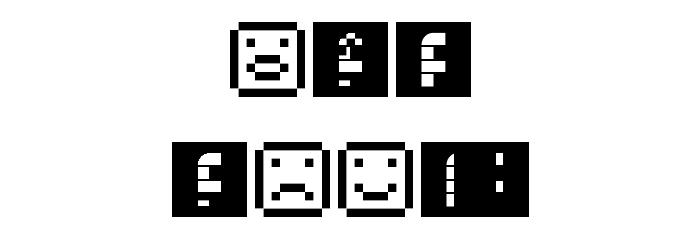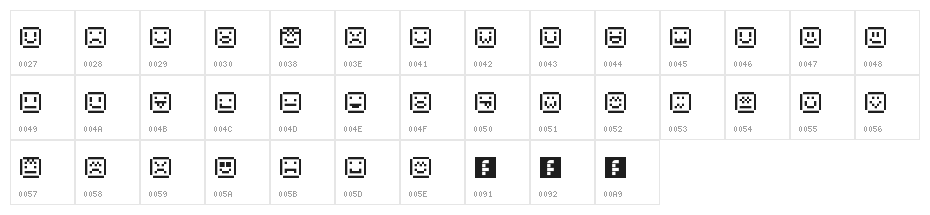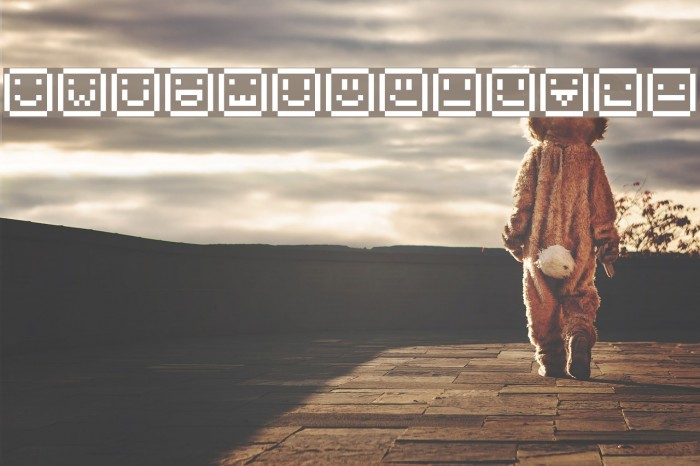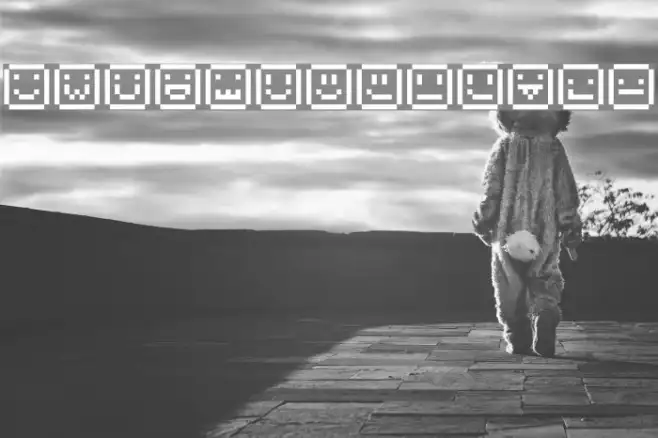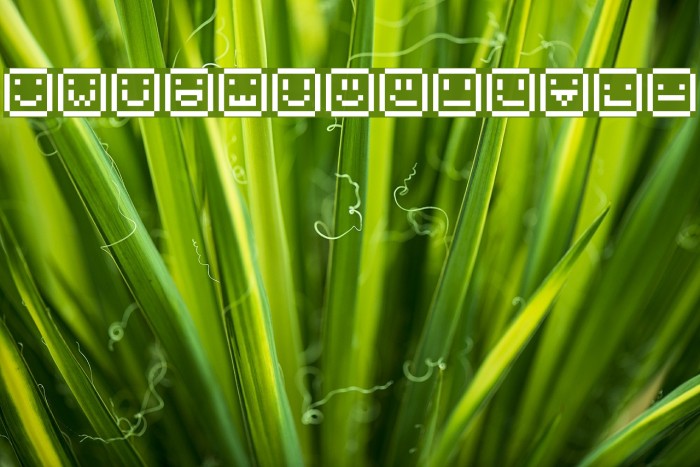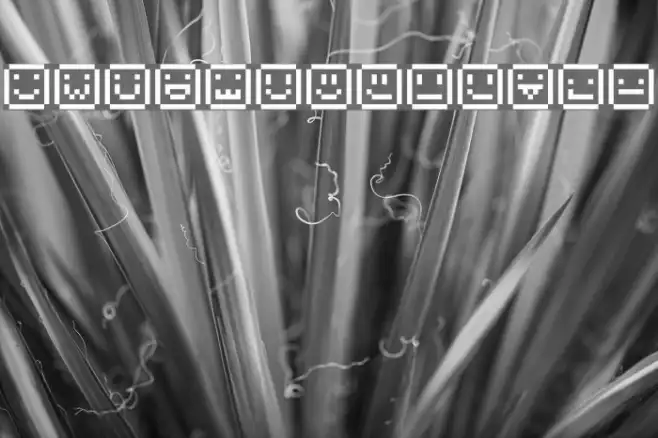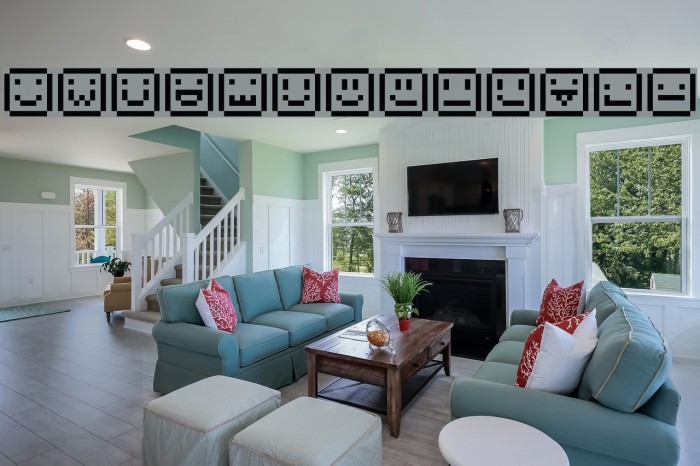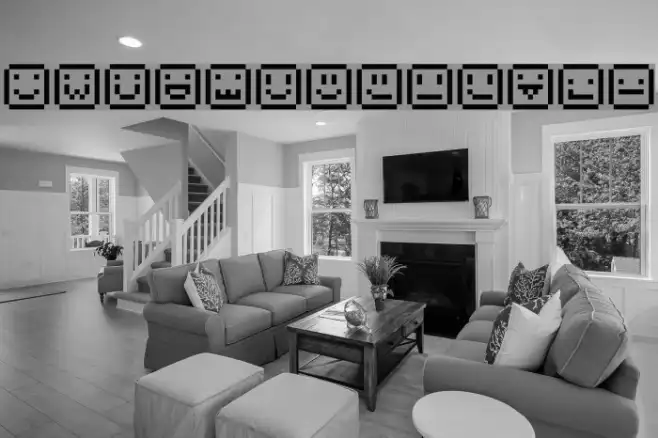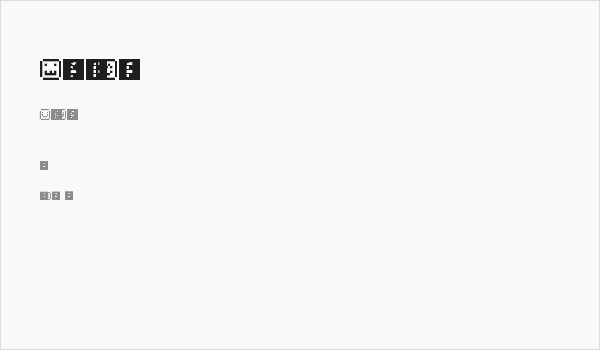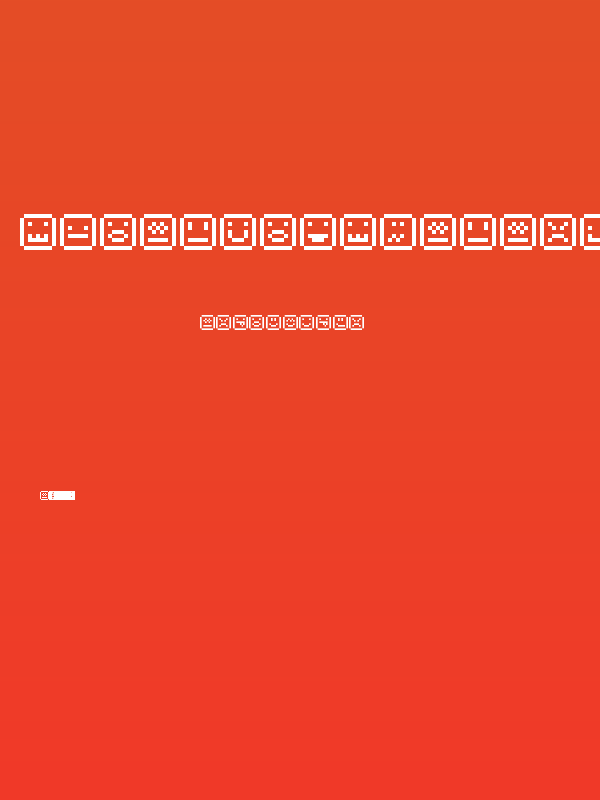
EmoticonesTityly Regular Font
EmoticonesTityly Regular Description
This font features a playful and pixelated design, reminiscent of early digital graphics and emoticons. Each character is enclosed within a square, giving it a uniform and structured appearance. The font includes a variety of emoticon faces, each with distinct expressions, adding a whimsical and nostalgic touch. The pixelated style is consistent throughout, emphasizing a retro digital aesthetic. This font is ideal for projects that aim to evoke a sense of fun and nostalgia, particularly those related to gaming, digital art, or retro-themed designs.
| Overall Style | Retro, Playful |
| Use Case | Logos, Digital Art, Gaming Interfaces |
| Proposed Projects | Ideal for retro-themed designs, digital art projects, gaming interfaces, and playful branding. |